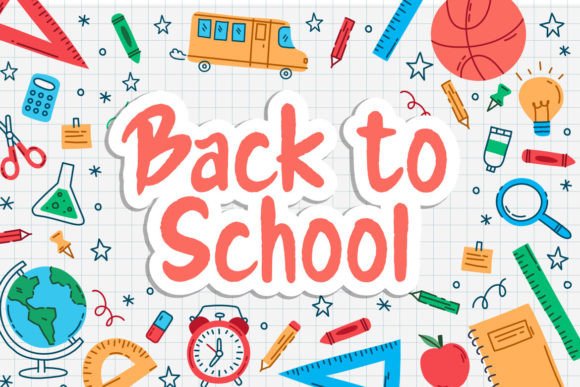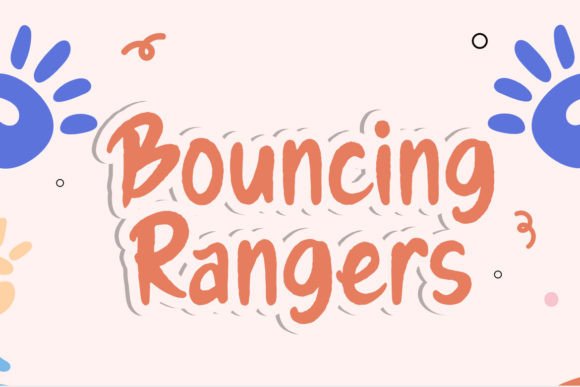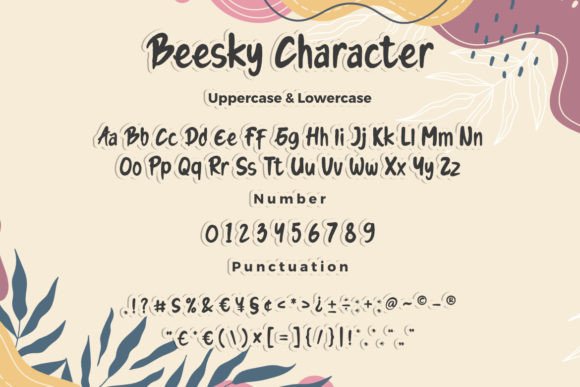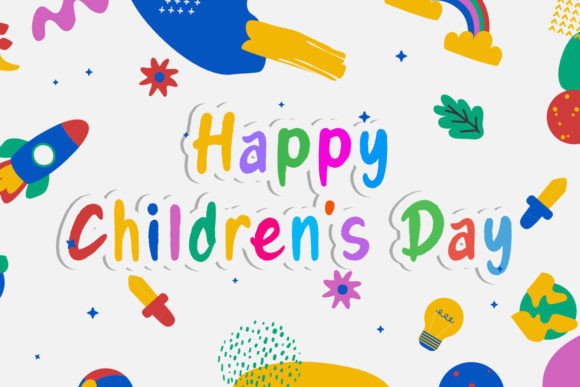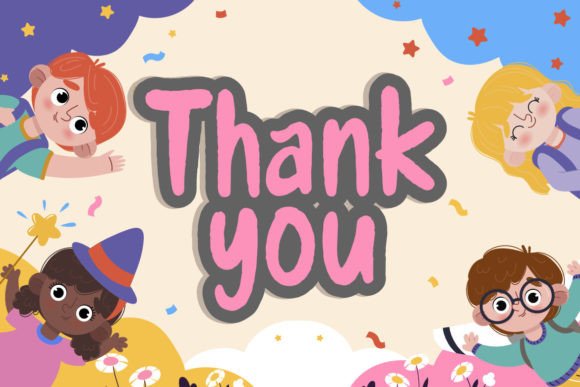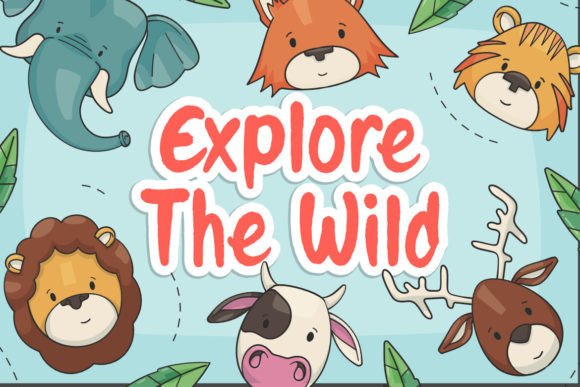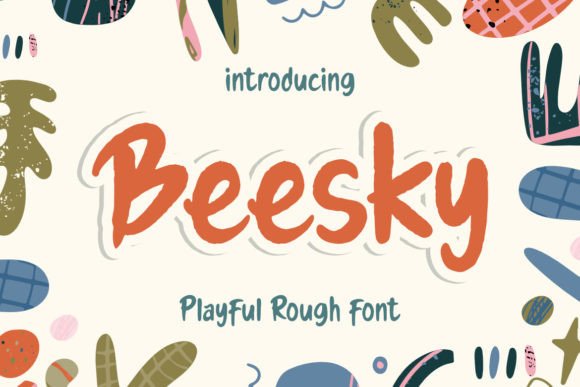
Introducing Beesky Playful Rough Font: Elevate Your Designs with a Touch of Whimsy
Are you tired of using the same old fonts in your designs? Look no further than Beesky Playful Rough Font, a high-quality font that adds a touch of whimsy and playfulness to any project. With its unique rough texture and elegant lines, Beesky is perfect for designers and crafters looking to elevate their work and make it stand out.
What is Beesky Playful Rough Font?
Beesky Playful Rough Font is a carefully crafted font that combines a playful, rough texture with elegant lines and curves. This font is made with a high premium quality level, ensuring that it looks great in any design, from flyers and quotes to posters and banners. With its unique texture and versatile design, Beesky is perfect for a wide range of projects, including packaging, merchandise, logotypes, and more.
Key Features of Beesky Playful Rough Font
- High-quality design: Beesky Playful Rough Font is made with a high premium quality level, ensuring that it looks great in any design.
- Playful rough texture: The font’s unique rough texture adds a touch of whimsy and playfulness to any project.
- Elegant lines and curves: Despite its rough texture, Beesky has elegant lines and curves that make it perfect for a wide range of designs.
- Versatile: Beesky is perfect for a wide range of projects, including flyers, quotes, posters, banners, packaging, merchandise, logotypes, and more.
Why Choose Beesky Playful Rough Font?
There are many reasons why Beesky Playful Rough Font is the perfect choice for designers and crafters. Here are just a few:
- Add a touch of whimsy to your designs: Beesky’s unique rough texture and elegant lines make it perfect for adding a touch of whimsy to any design.
- Stand out from the crowd: With its unique texture and versatile design, Beesky is sure to make your designs stand out from the crowd.
- Perfect for a wide range of projects: Beesky is perfect for a wide range of projects, from flyers and quotes to posters and banners.
- Easily readable: Despite its rough texture, Beesky is easily readable, making it perfect for designs where you need to communicate a message.
How to Use Beesky Playful Rough Font
Using Beesky Playful Rough Font is easy. Here are a few tips to get you started:
- Pair it with other fonts: Beesky looks great when paired with other fonts, such as sans-serif fonts or script fonts.
- Use it for headings and titles: Beesky is perfect for headings and titles, where its unique texture and elegant lines can really shine.
- Experiment with different colors: Beesky looks great in a wide range of colors, from bright and bold to pastel and subtle.
Beesky Playful Rough Font is a high-quality font that adds a touch of whimsy and playfulness to any design. With its unique rough texture and elegant lines, Beesky is perfect for designers and crafters looking to elevate their work and make it stand out. Whether you’re working on a flyer, quote, poster, banner, or any other project, Beesky is sure to be a great choice.